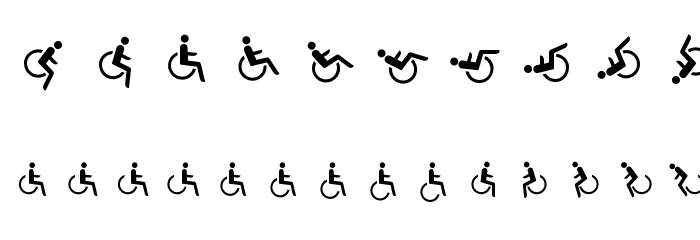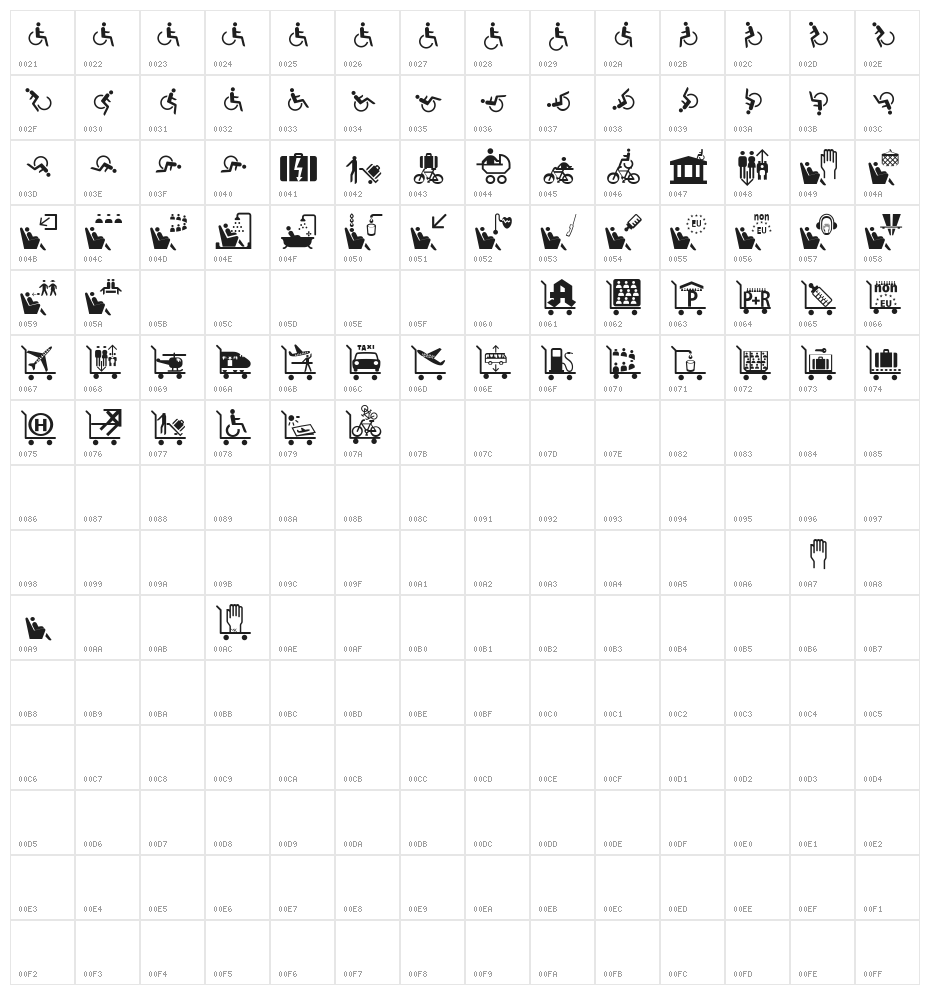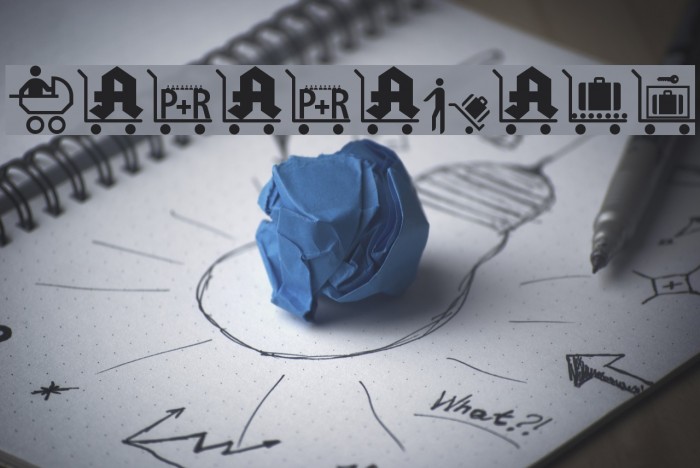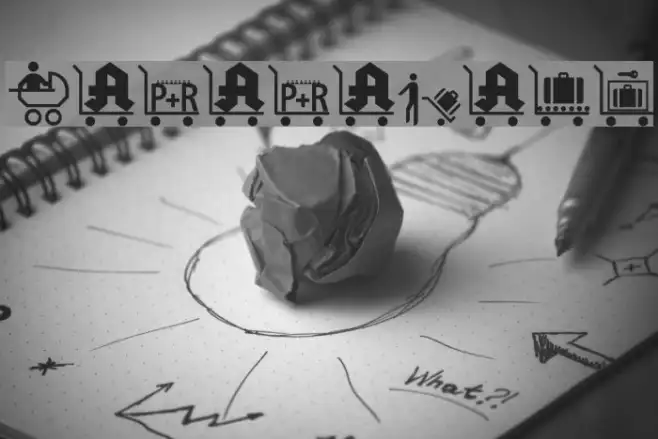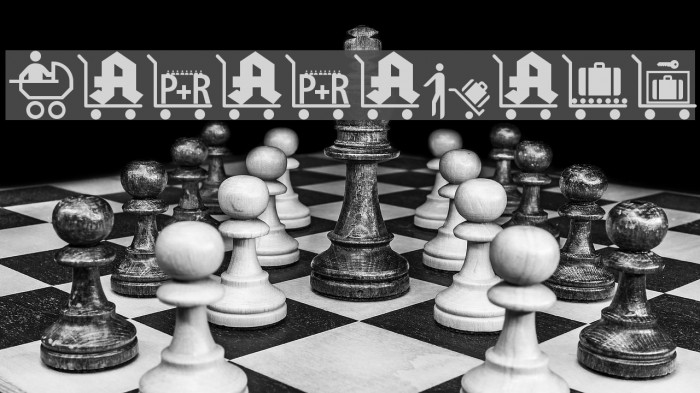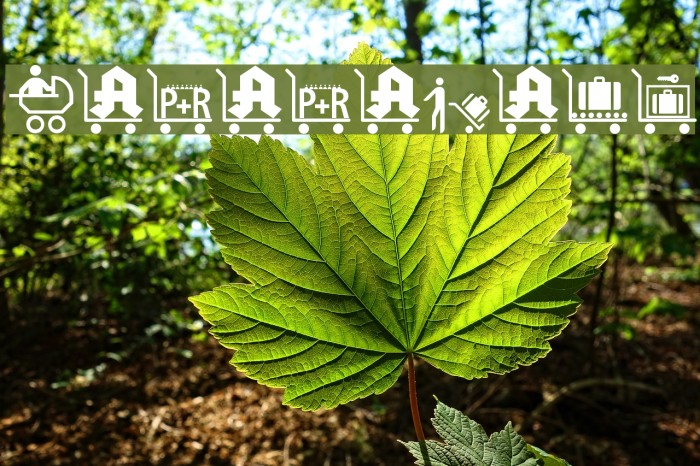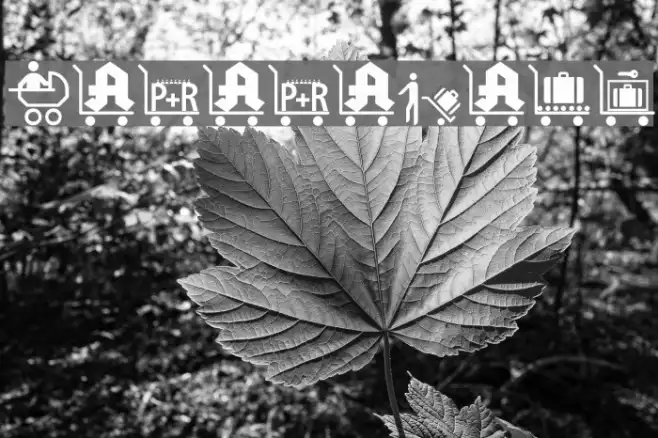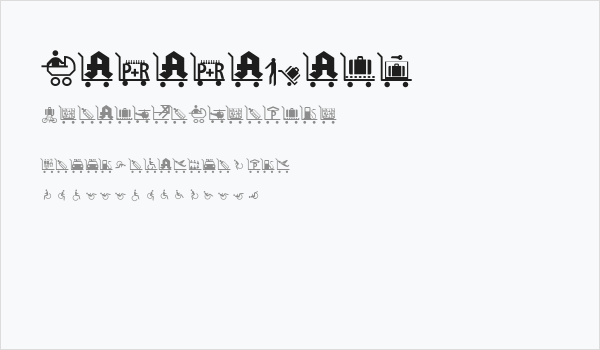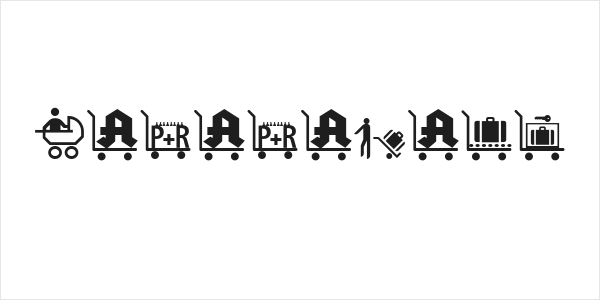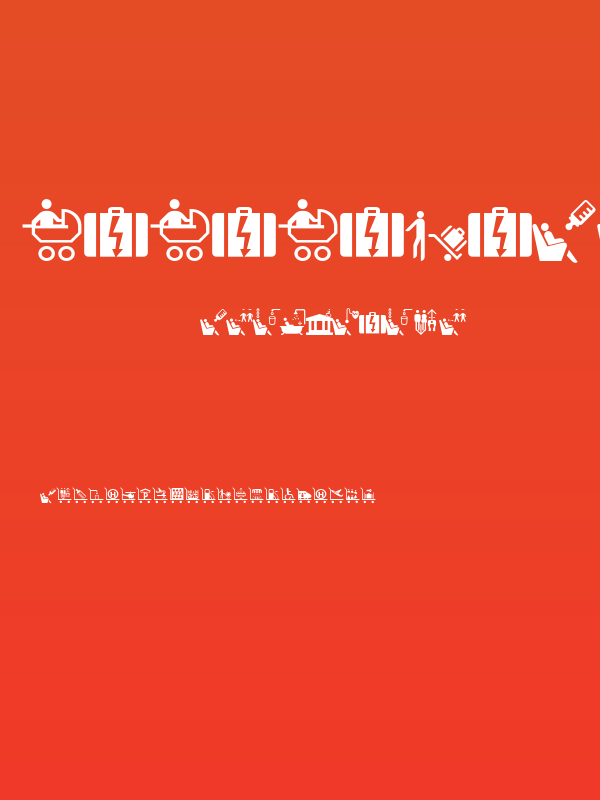
DadadaBats Font
DadadaBats Description
This is a collection of pictograms designed for use in various public and transportation settings. The icons are simple, clear, and universally recognizable, making them ideal for conveying information quickly and effectively. The set includes symbols for accessibility, transportation modes, and public facilities, among others. Each icon is crafted with a focus on clarity and ease of understanding, using bold lines and minimal detail to ensure visibility from a distance. The consistent style across the set ensures a cohesive look when used together, making it suitable for signage and informational displays.
| Use Case | Signage, Informational displays |
| Proposed Projects | Ideal for public signage, transportation hubs, airports, and informational displays in public spaces. |